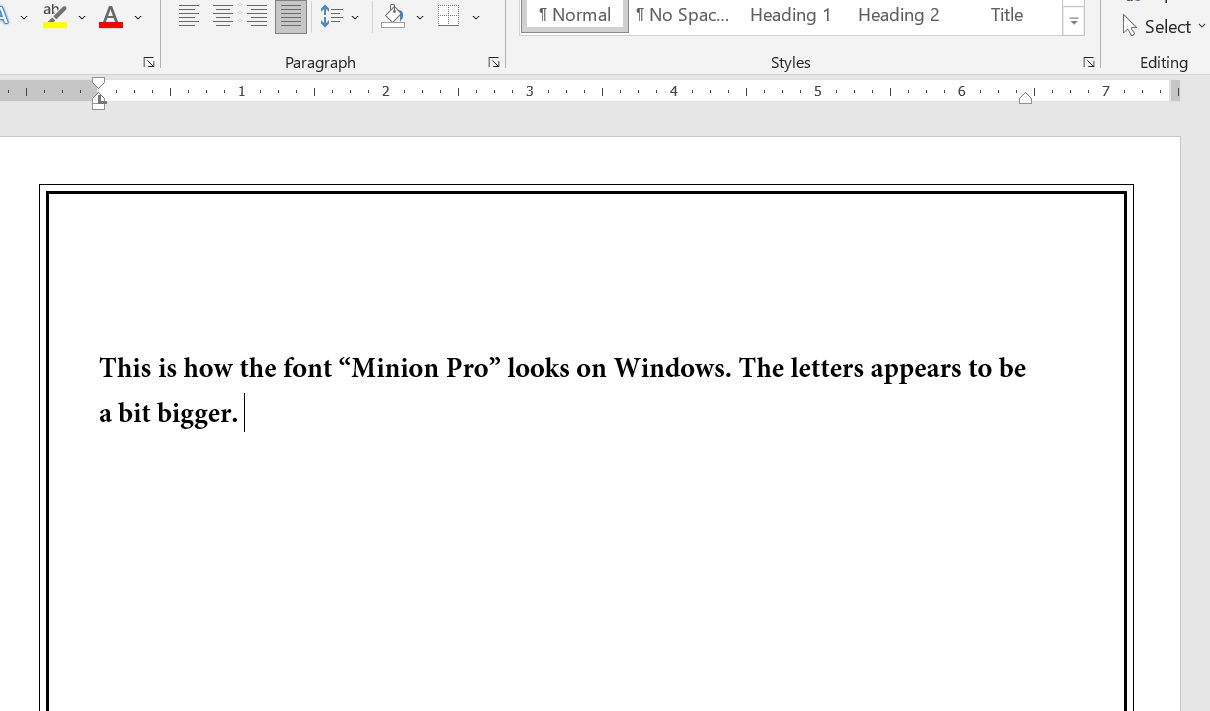
I've been using Microsoft Word on Windows for many years. I've created many Word files, using the font "Minion Pro". When I open them on my MACBOOK, I see that the font looks a bit different from how it looks on Windows. And, unfortunately the pages are messed up: for example paragraphing and spacing is different. I should note that I haven't installed any fonts on my Macbook. How can resolve this issue?
The two look like different fonts. The Mac sample looks like a Bold version. Your images are far to low res to really tell with any accuracy.